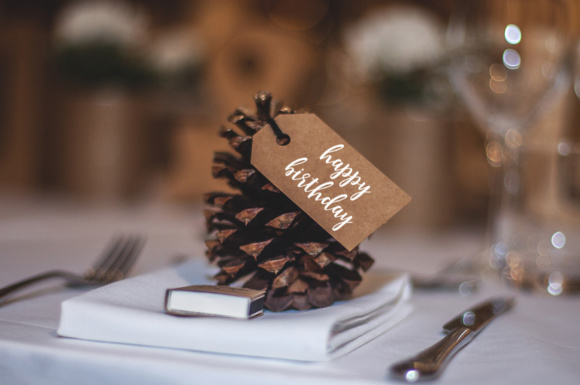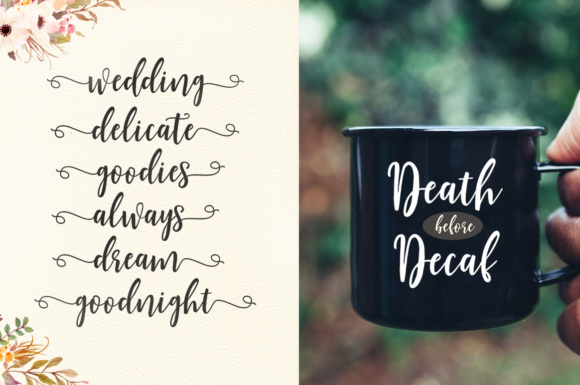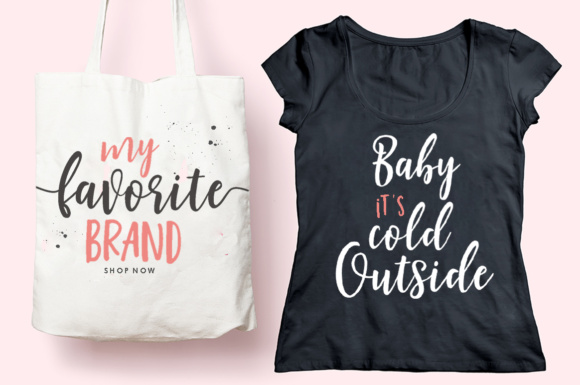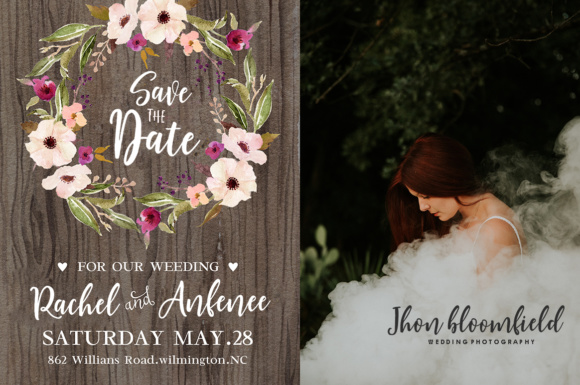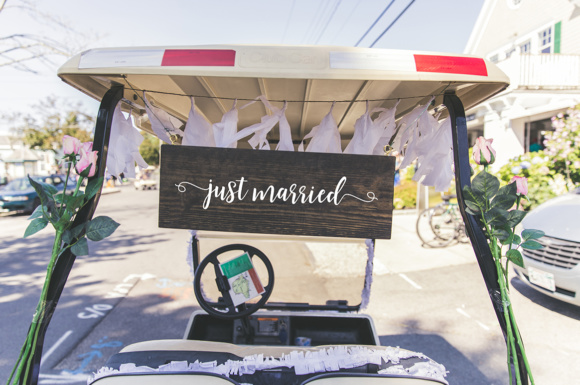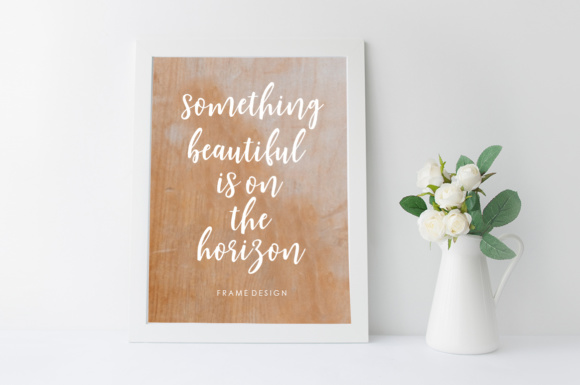
Shellion Font
About Shellion Font
Shellion is a beautiful and irregular looking script font, ideal for use in a wide range of projects. This font comes with a few stylistic alternates so you can create wonderful and classy calligraphy styled designs.